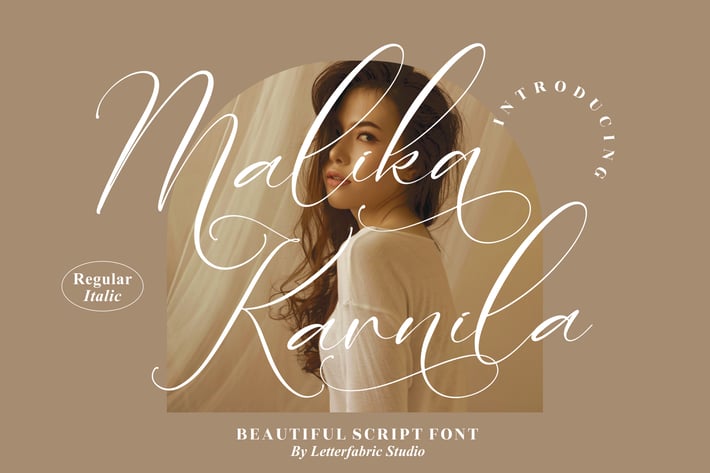
Malika Kanila Beautiful Script Font
Malika Kanila Beautiful Script Font radiates timeless sophistication with its graceful strokes and flowing ligatures. Designed with both Regular and Italic styles, it captures the essence of handwritten elegance — making it perfect for projects that demand a soft yet captivating aesthetic.
Elegant handwritten script with delicate swashes
Includes Regular & Italic styles
Smooth curves and refined calligraphic flow
Complete uppercase, lowercase, and punctuation
Wedding invitations and stationery
Luxury branding and packaging
Photography logos and signature marks
Elegant product labels and quotes
* Romantic editorial or lifestyle designs
Whisper elegance into every word — a script that speaks with grace and beauty.